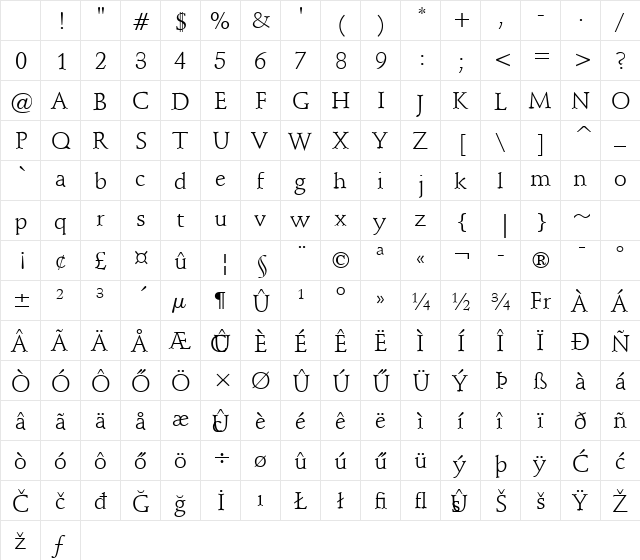
Complete LOR-Schneidler Roman glyph index. Displaying only characters natively supported by LOR-Schneidler Roman font.
LOR-Schneidler is a composed and adaptable typeface that performs quietly and consistently across a wide range of design contexts.